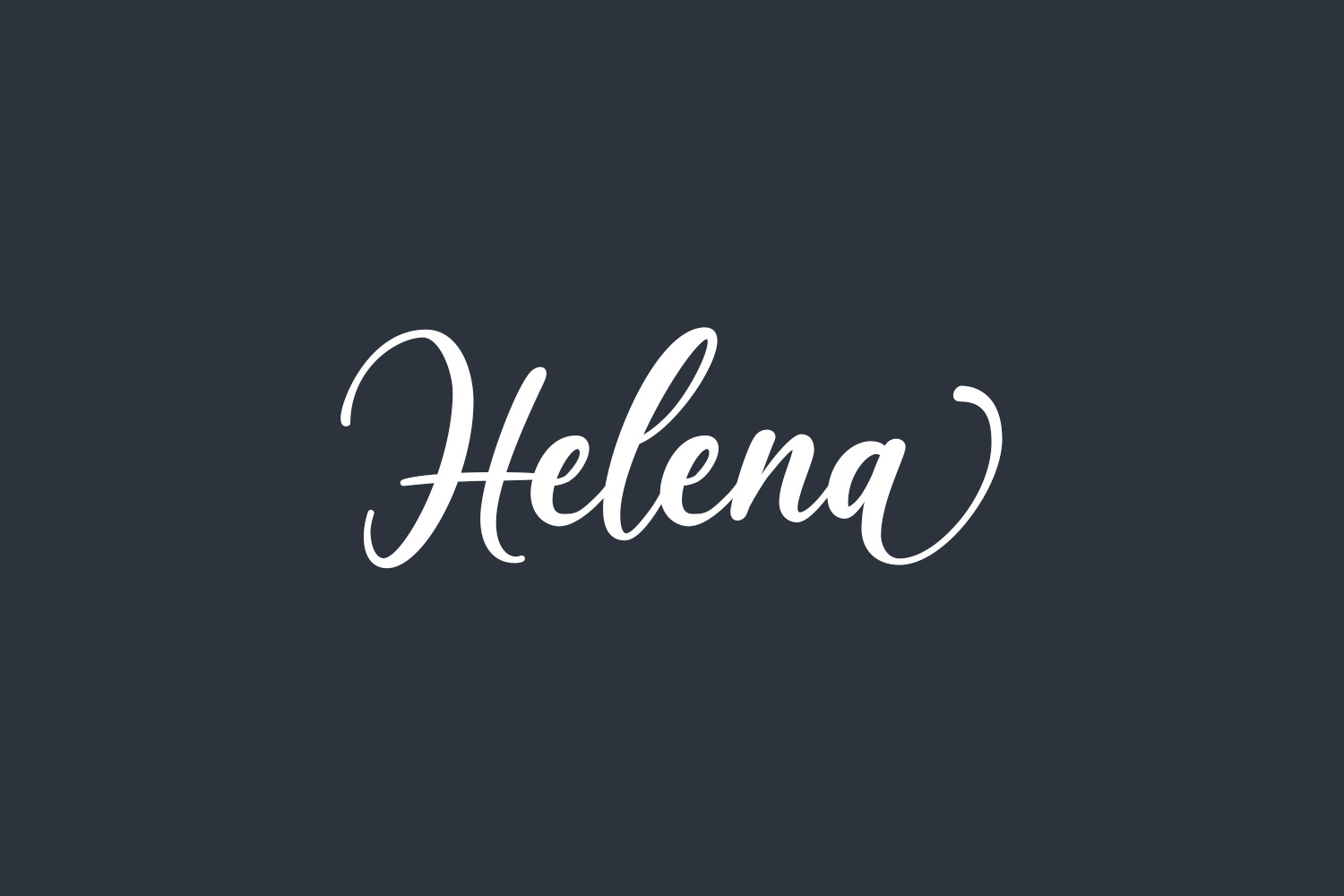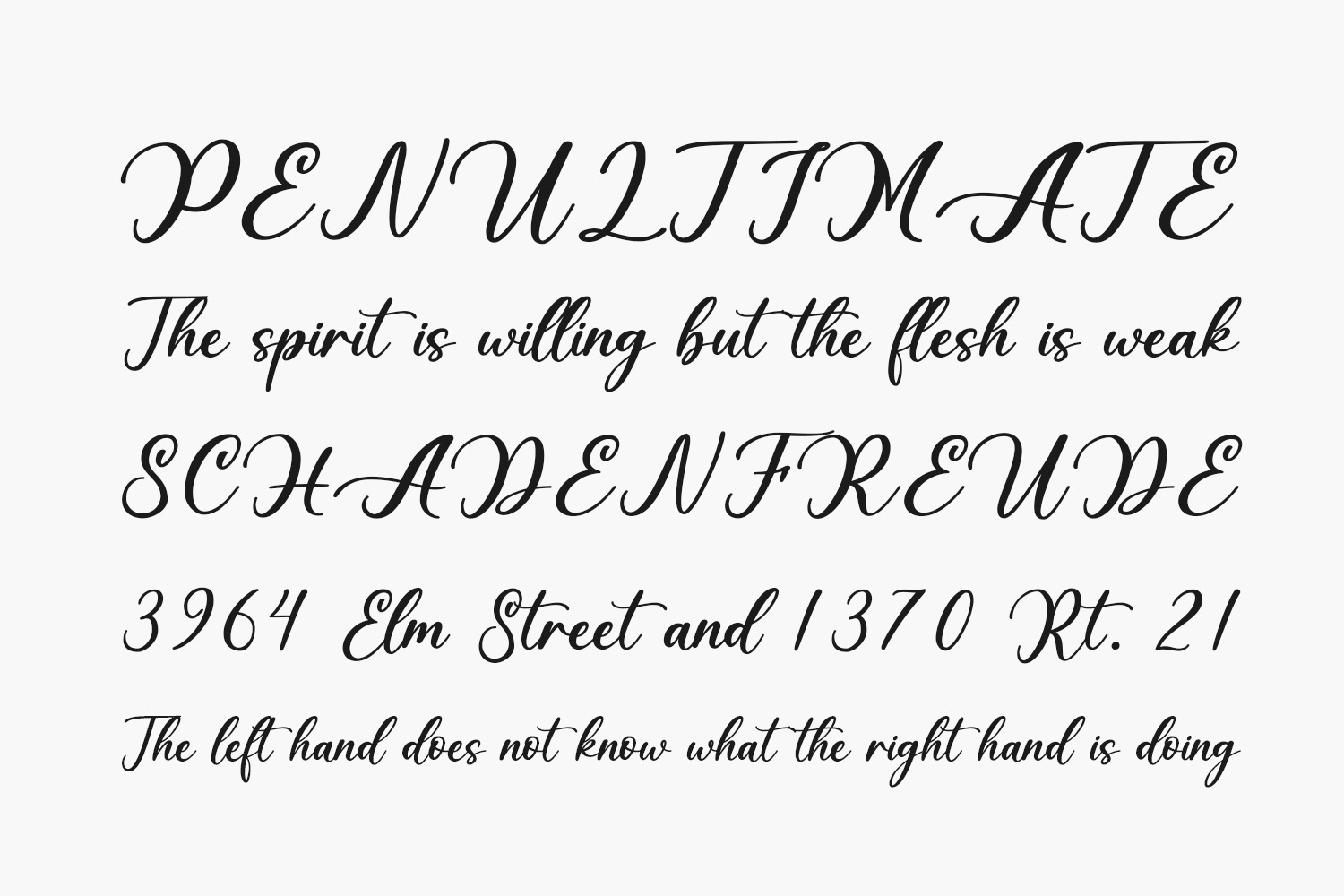
Helena Free Font is a chic, refined script font that emanates sophistication and elegance. Its stylish alternates and ligatures make this font the perfect match for any project. Helena Free Font was designed by Graphix Line Studio and is free for personal use only. Please purchase the full version for commercial use.